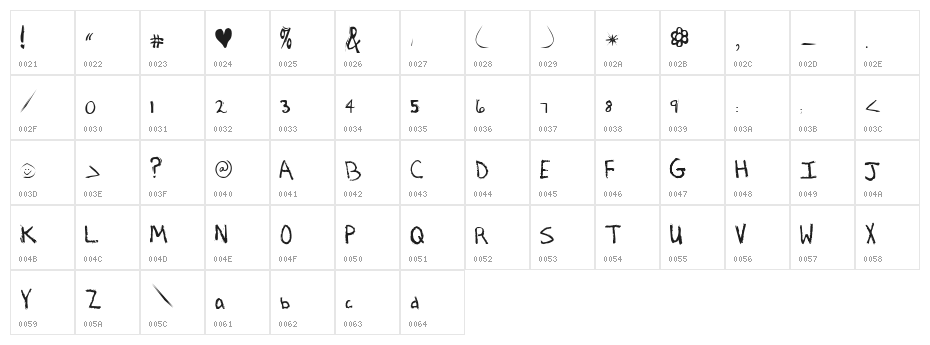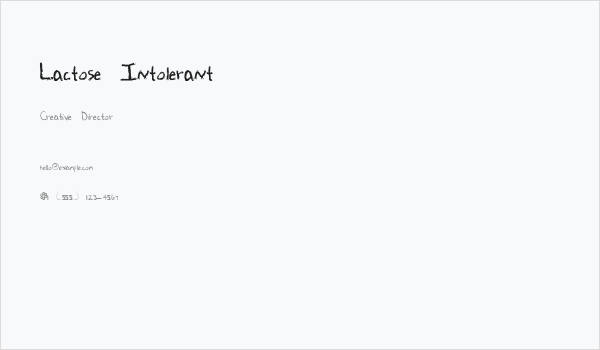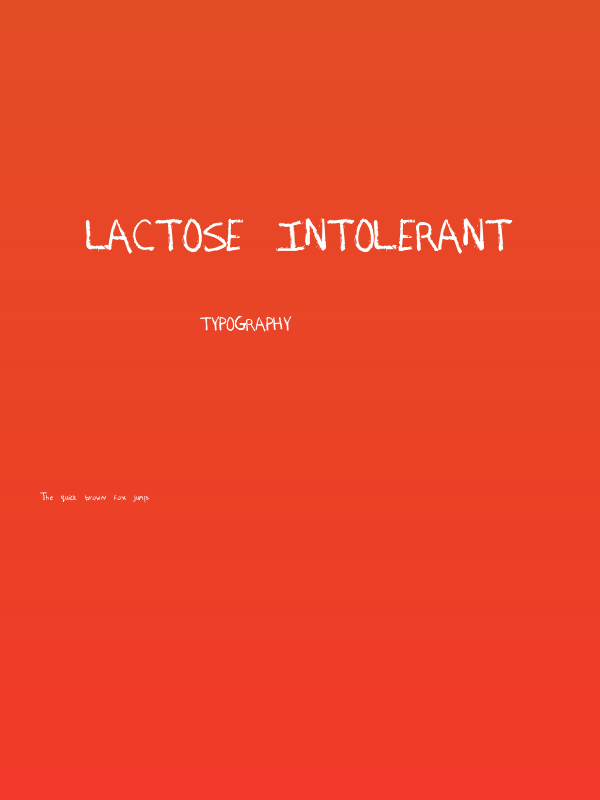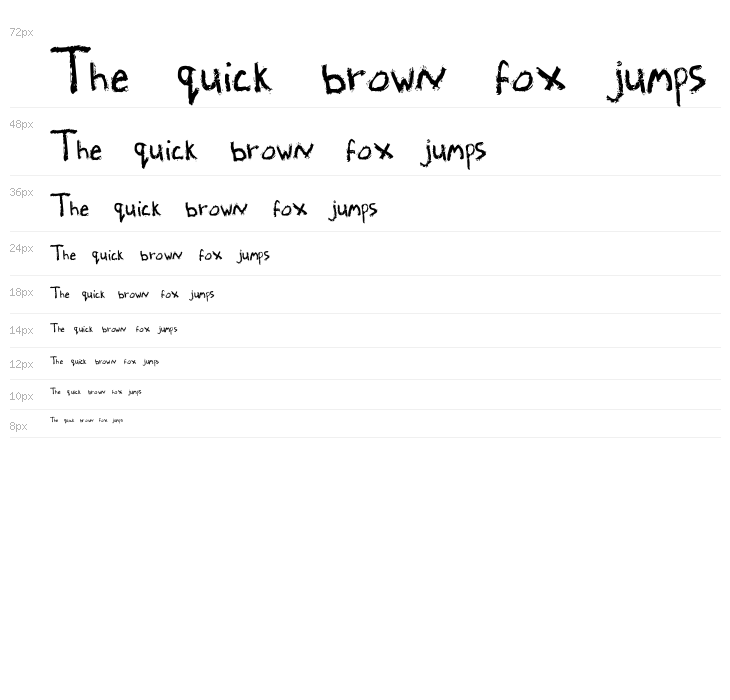
Lactose Intolerant Font
Lactose Intolerant Description
This font features a rough, textured appearance that mimics the look of hand-painted or distressed lettering. The characters have an irregular, organic feel, with uneven edges and a slightly chaotic style. This gives the font a dynamic and energetic vibe, making it stand out with its unique personality. The uppercase and lowercase letters maintain a consistent style, while the numerals and special characters complement the overall aesthetic. The font's playful yet edgy design makes it suitable for creative projects that require a bold statement.
| Proposed Projects | Ideal for posters, album covers, graffiti art, and edgy branding projects. |